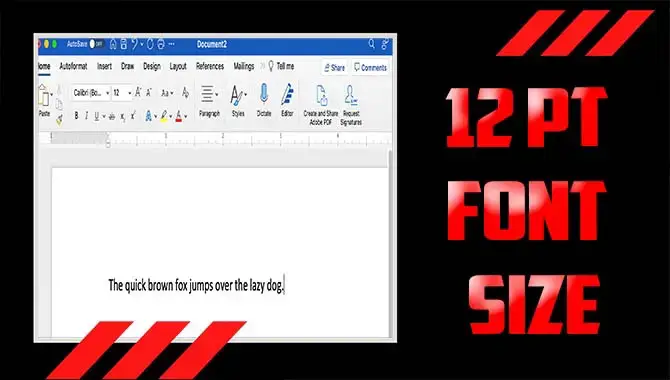
12 pt font refers to the size of a typeface in printing and typography. It is a standard measurement used to determine the height of characters within a font.
In this case, “pt” stands for “points,” a unit of measurement used in typography to determine the size of the text. A 12 pt font means that each character, including letters, numbers, and symbols, measures approximately 12 points in height.
Regarding typography, font size is crucial in determining your content’s readability and visual appeal. One commonly used font size is 12 pt. But what does it really mean? Here we will dive deep into the world of 12 pt font what is 12 pt font.
We’ll explore its format, understand its significance in formatting, and examine its visual appearance. Additionally, we’ll discuss which font size is suitable for specific purposes and how you can effectively use 12 pt font in your content.
Exploring What Is 12 Pt Font?
Here we explore what 12 pt font is. The point size of a font refers to the height of the characters in that font. In the case of a 12 pt font, one “em” (a unit of measurement) equals 12 points. This means that each character in the font will have a height of 12 points.
The “em square” is an imaginary space around which the font is designed. It helps determine the spacing and proportions of the characters within the font. However, understanding the concept of point size and em squares can be helpful when working with fonts and designing layouts to ensure proper readability and visual appeal.
Understanding The Format Of 12 Pt Font
Understanding the format of 12 pt font is crucial for typography and printing. This font size, measured in points, plays a significant role in the visual appearance of your content. It is equivalent to approximately 1/6th of an inch tall, or about 0.17 inches, making it a popular choice for body text in various documents.
Different fonts may appear slightly different at the same point size, so selecting a suitable typeface like Times New Roman or Arial is essential for legibility. Taking into account aspects like x-height, line length, and the overall formatting of your document will contribute to the overall readability and professional look.
The Significance Of Font Size In Formatting
Font size is an important factor in document and design formatting. People measure it in points, and 12 pt is a commonly used size for body text. This size strikes a balance between readability and space efficiency. When selecting a font size, it is essential to consider both legibility and aesthetics.
Different fonts may vary slightly at the same point size, so choosing a font that suits your document’s purpose is crucial. Optimal font sizes for specific purposes include 10 pt for smaller text and larger sizes like 14 pt or 16 pt for headings or titles. The choice of font size greatly influences your content’s overall visual appearance and legibility.
Exploring The Visual Appearance Of 12 Pt Font
When examining the visual appearance of 12 pt font, it’s essential to consider various factors. A commonly used standard size for printed text is 12 pt, which is crucial to consider when measuring font size in points.
This measurement refers to the height of the characters, ensuring legibility and readability in various documents. However, it’s important to note that the visual impact of a 12 pt font can vary depending on factors like the typeface, spacing, and leading.
Finding a font that suits your specific requirements and preferences is key. Balancing aesthetics and functionality, along with considering aspects like readability, accessibility, and individual needs, can greatly enhance the overall visual appearance of a document.
Which Font Size Is Suitable For Specific Purposes?
For printed body text, use a font size of 10-12 pt to ensure readability. Headings and subheadings can be larger, ranging from 14 pt to 24 pt. A 16 px or higher font size is common for legibility on different screens in digital content. Consider the overall design and readability when choosing a font size due to variations in perceived sizes between fonts.
How To Use 12 Pt Font Effectively In Your Content
To use 12 pt font effectively in your content, it is crucial to understand the fundamentals of font size and measurement. A 12 pt font refers to the height of characters, from the tallest letter to the lowest descender. Achieving optimal readability and legibility is key when using this font size.
By following best practices and adjusting spacing and line height, you can enhance the visual impact of your content. Whether you are working on print or digital media, choosing the appropriate font size and considering the overall design and readability is important. Avoid common mistakes and ensure the chosen font complements your content. Incorporating these strategies will help you effectively utilize 12 pt font.
Choosing the right font size is important for any design or writing project. When it comes to 12 pt font, it refers to the size of the characters in a specific typeface. This font size is commonly used in various documents, including essays, reports, and business correspondence.
4.What Does A 12-Point Font Look Like?
Ans: A 12-point font is a standard size for printed text, measuring around 1/6th of an inch in height. It is commonly used for body text in various documents, like essays and reports. This site often uses fonts like Arial, Times New Roman, and Calibri.
5.What Is 12-Point Font Single-Spaced?
Ans: In single spacing, a 12-point font refers to the height of the individual characters, with each letter or character being approximately 12 points in height. Single spacing means the lines of text are closer than double spacing in a document.